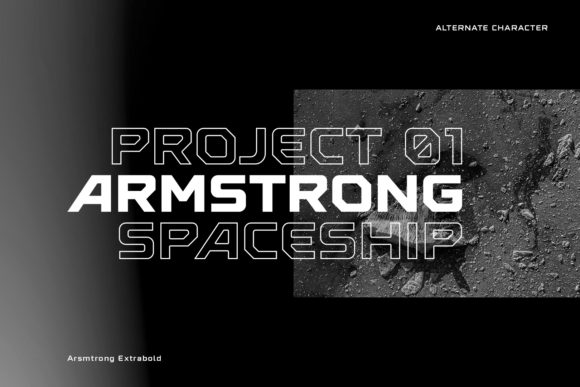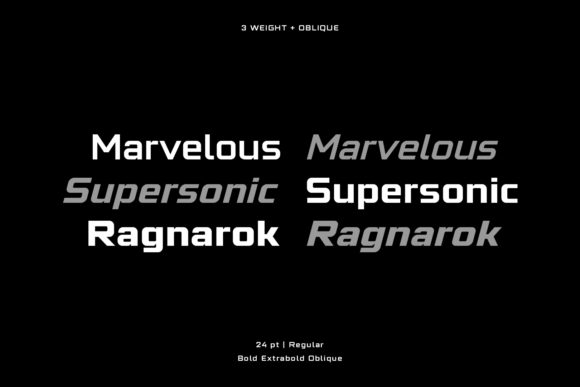
Armstrong Square Font
Armstrong Square Font is a cool and adaptable display font. This font is suitable for designs such as t-shirts, sportswear, posters, logos, advertisements, clothing, and more.
Armstrong Square Font is a cool and adaptable display font. This font is suitable for designs such as t-shirts, sportswear, posters, logos, advertisements, clothing, and more. Whatever the topic, this font will be a great asset to your font collection, as it has the potential to enhance any creation.